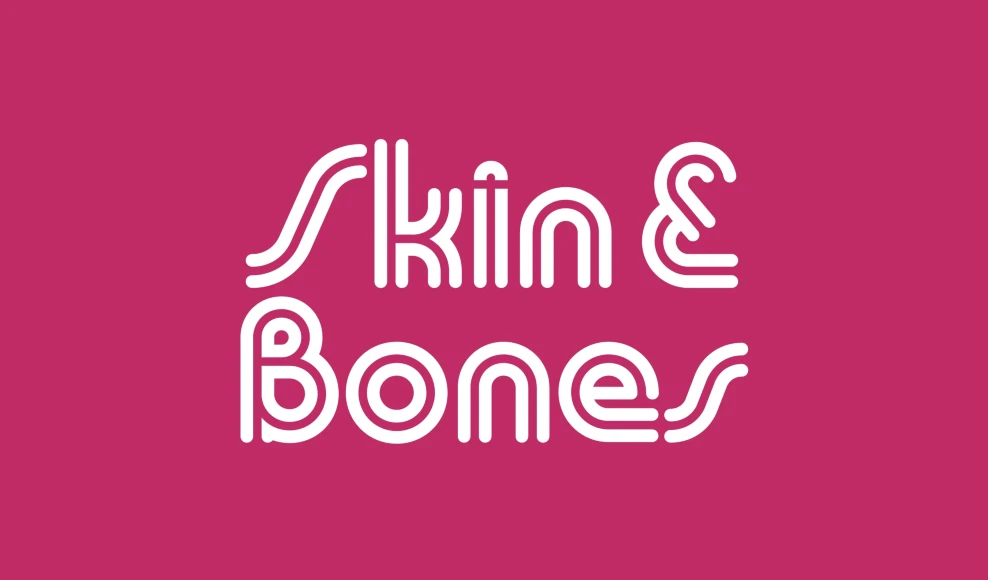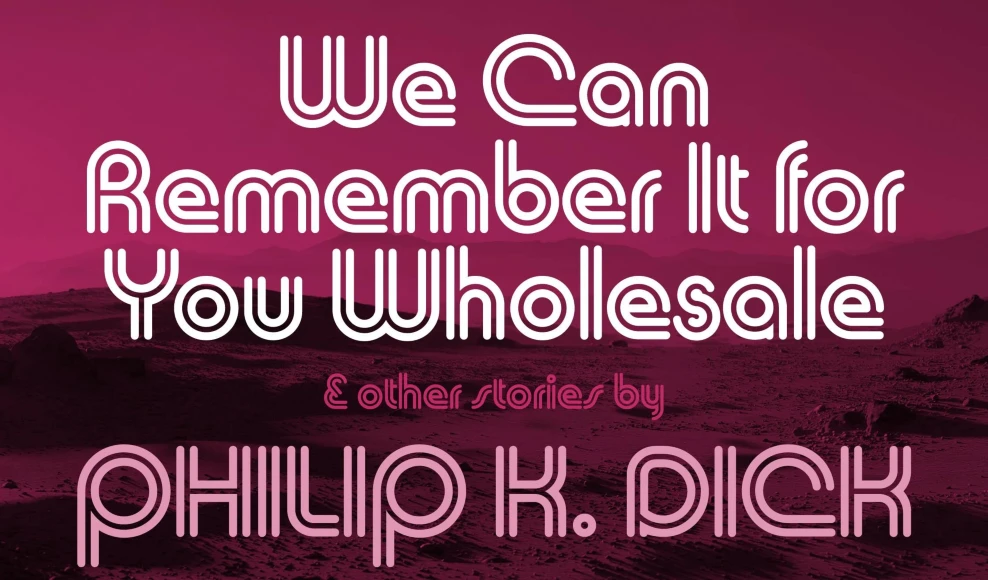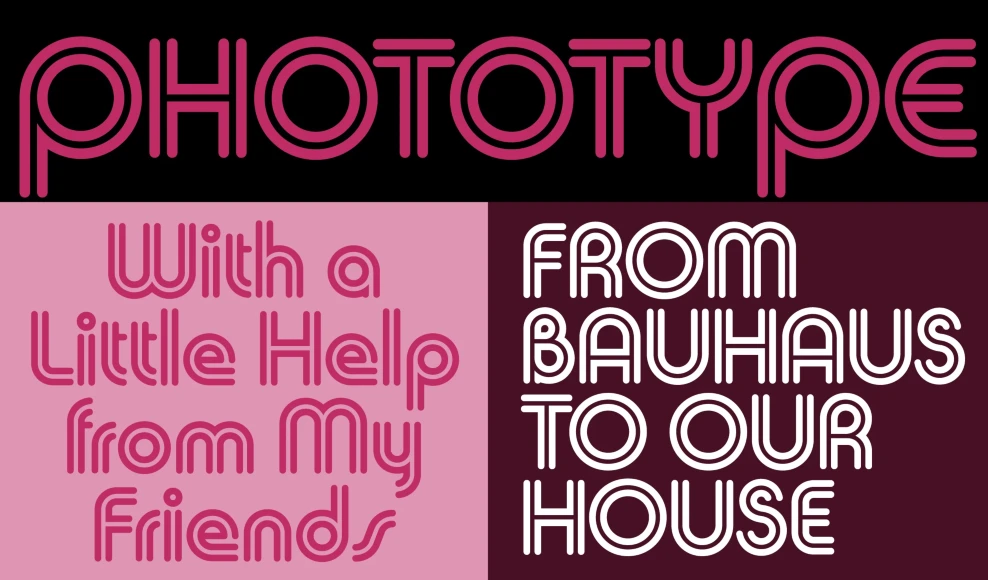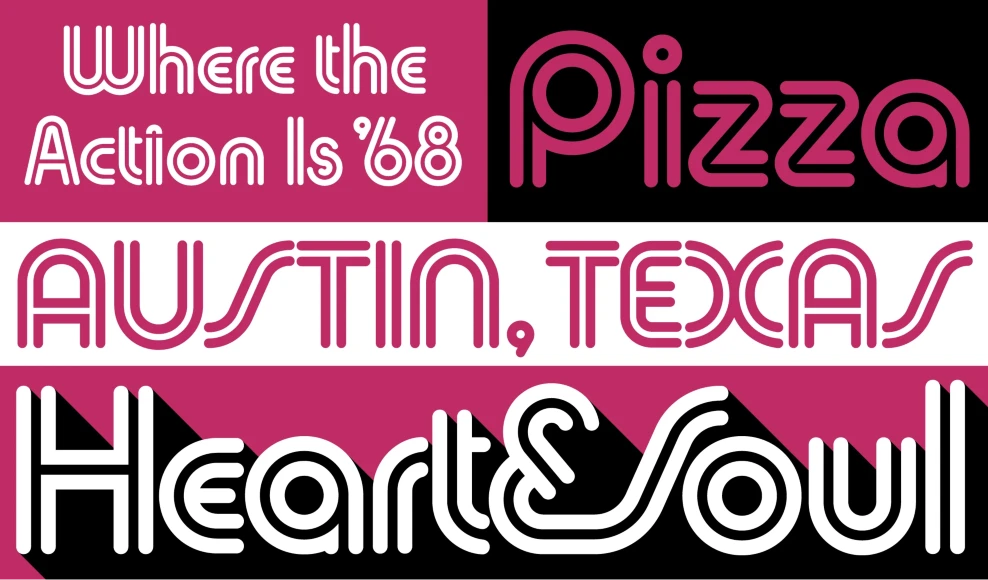
Skin & Bones
From Mark Simonson Studio
Skin & Bones was originally designed by Douglas F. Jones for the Visual Graphics Corporation, which made the Photo Typositor, a headline-setting machine. Jones was inspired by Herbert Bayer’s geometric alphabets as part of the Bauhaus movement and thought that an inline treatment would be visually appealing. In 2017, Doug gave Mark Simonson permission to create an official version of Skin & Bones, resulting in a faithful digitization of Doug’s 1972 design but with a larger character set.
Designed by Mark Simonson & Douglas F. Jones